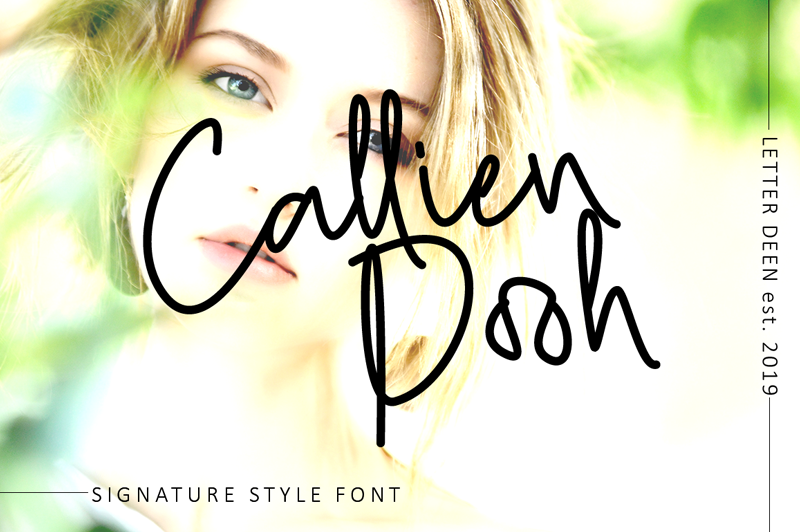
Preview and download Callien Pooh Font. Created by Muhammad Wahyudin in Script Handwritten styles with Free for personal use license.
Hi everyone! Callien Pooh is a signature font, with sweet touches and beautiful curves on each letter. This font is great for your next creative project. Callien Pooh is perfect for fashion magazines, product watermarks, branding projects, wedding designs, social media posts, advertisements, product designs, label product, logo product, photography, invitation, card business and any projects that need signature style taste. NOTE: This demo font is for PERSONAL USE ONLY! But any donation are very appreciated. Paypal account for donation : https://www.paypal.me/wahyudin1886 Link to purchase commercial license : https://thehungryjpeg.com/product/3625459-callien-pooh Please visit our store for more great fonts : https://graphicriver.net/user/letter_deen Thank you. |